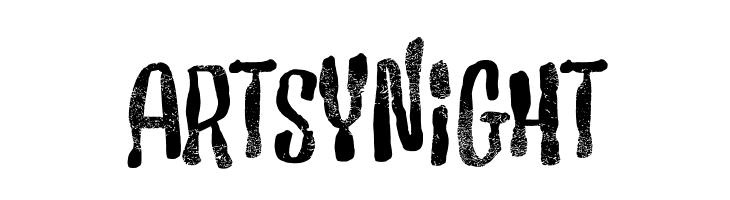
( Fonts by Gassstype )
A bold, hand-drawn font with a playful and textured design.
A playful, bold, and rounded font with a hand-drawn feel.
( Fonts by Impallari Type )
A playful, hand-drawn font with a sketch-like, textured appearance.
A playful, hand-drawn font with a whimsical and informal style.
( Fonts by Manfred Klein Fonteria )
A classic serif font with bold, authoritative characters and sharp serifs.
( Fonts by Nirmala Creative )
A playful, bold font with rounded, whimsical letterforms.